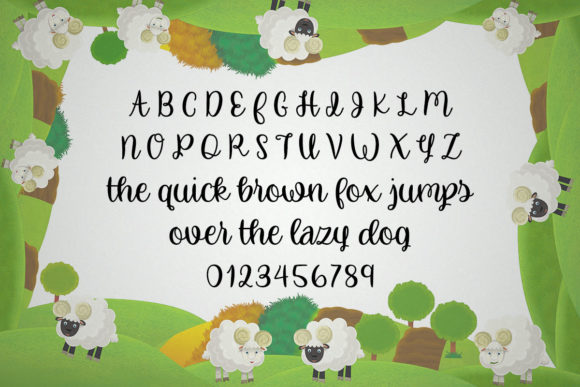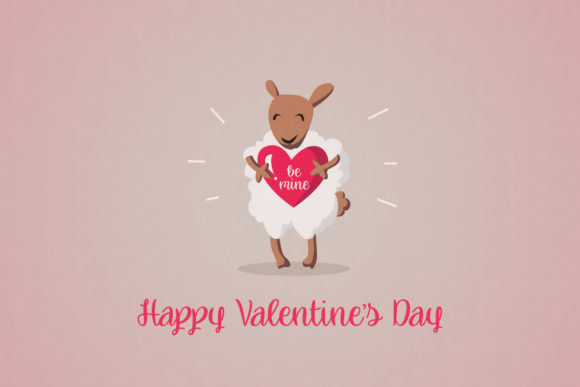
Introduction to Cute Little Sheep Font
Cute Little Sheep is a charming and cursive script font.
Its friendly feel makes this font incredibly versatile, fitting a wide range of contexts Add it to your creative ideas and notice how it makes them stand out.
Key Features of Cute Little Sheep Font
Why Choose Cute Little Sheep Font?